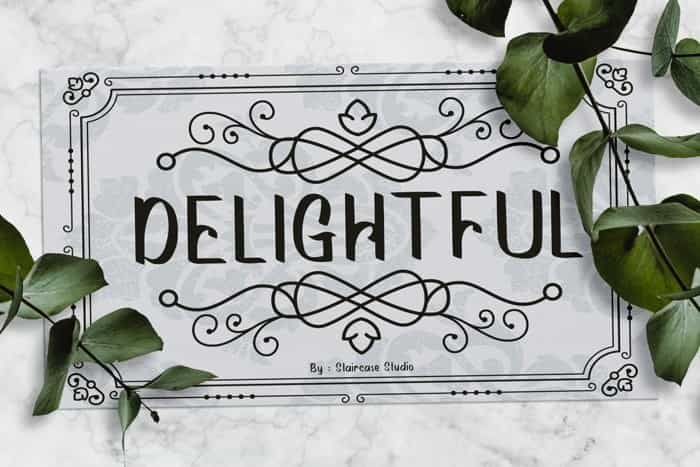
Delightful font offers a mix of modern styles making it versatile for various projects such as Logotype, Branding Design, Logo Design, Digital Lettering Arts, T Shirt/Apparel, Poster, Magazine, Signs, Wedding Invitation, Birthday Invitation, Advertising Design and other design requirements.